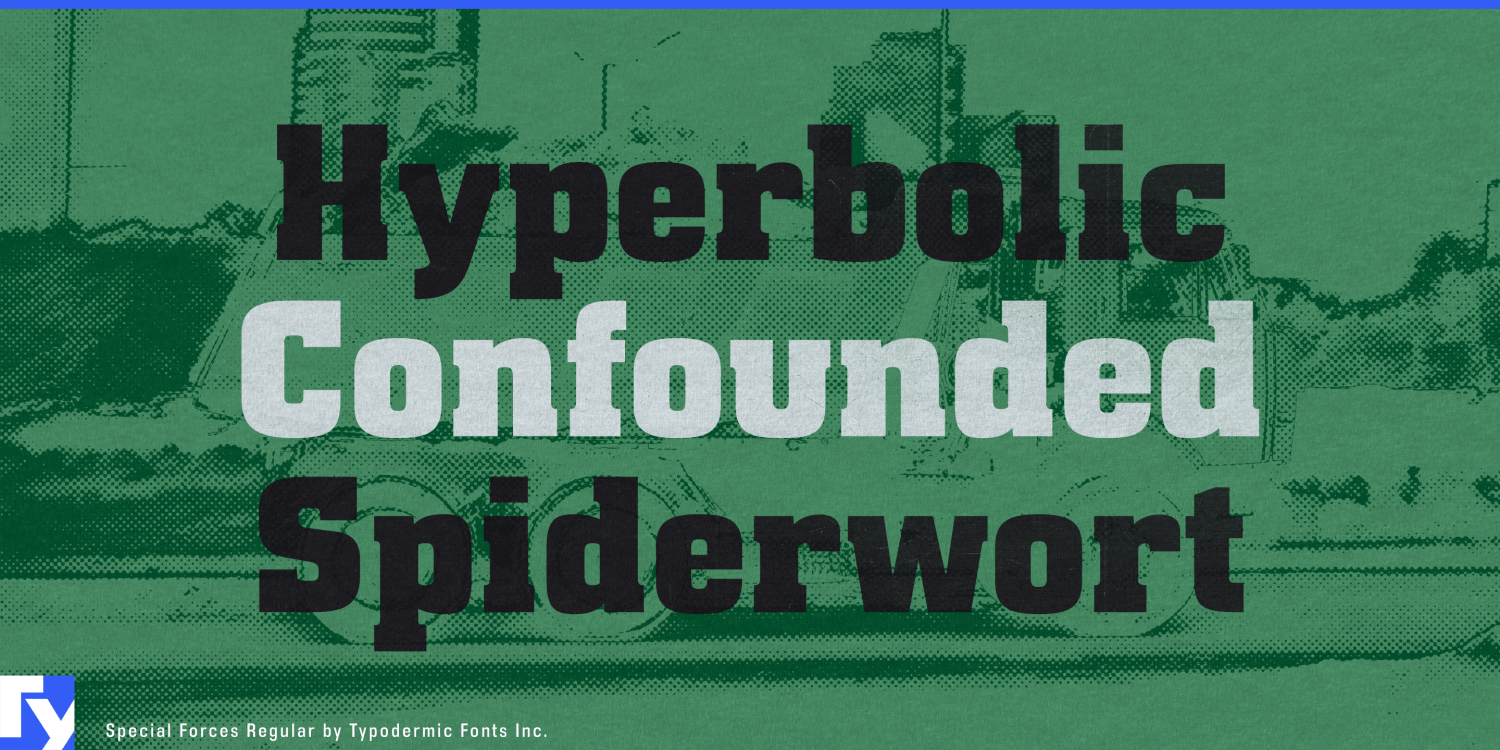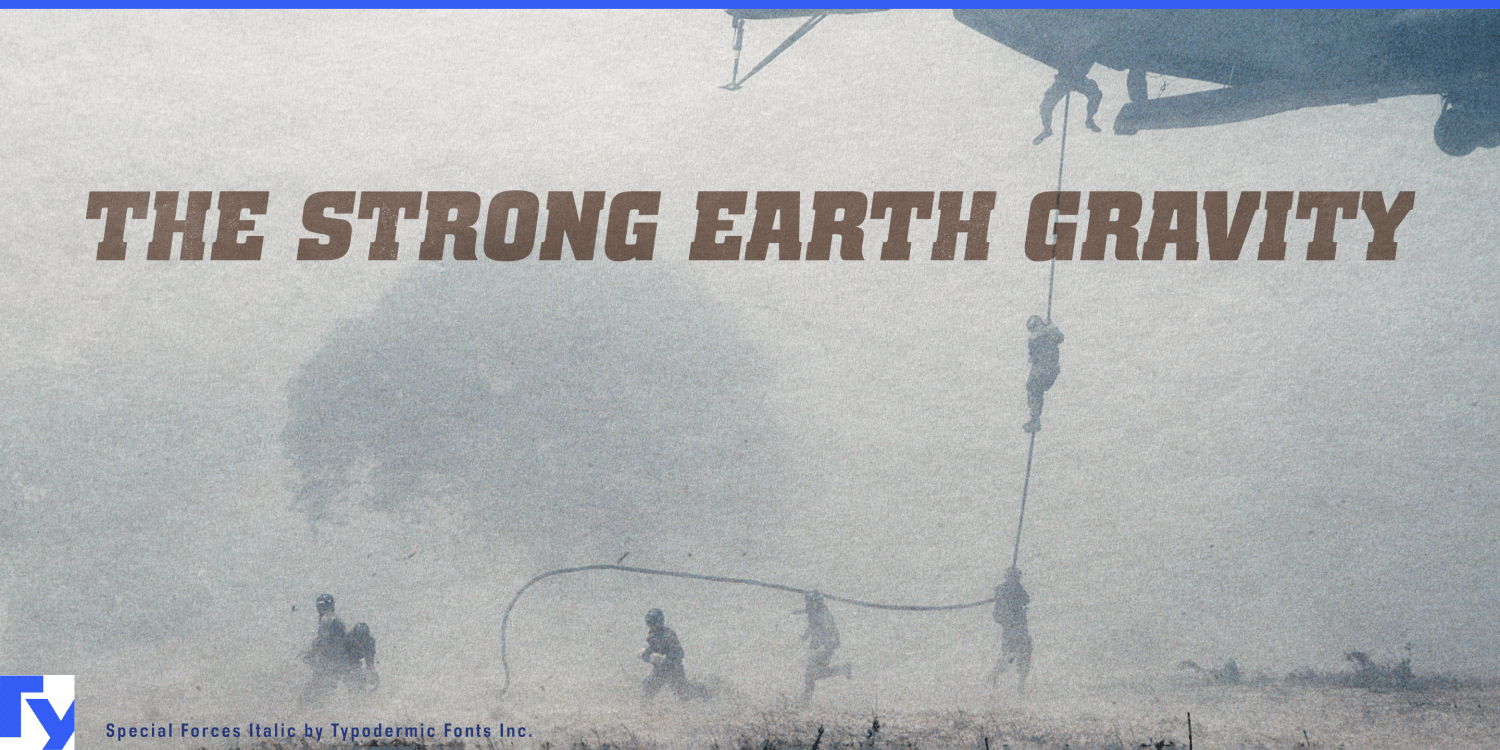
About Special Forces
Special Forces stands ready to deploy, a commanding slab serif that instills unwavering strength into every word it touches. This typeface doesn’t just communicate—it issues orders, with letterforms as efficient and unyielding as the elite…